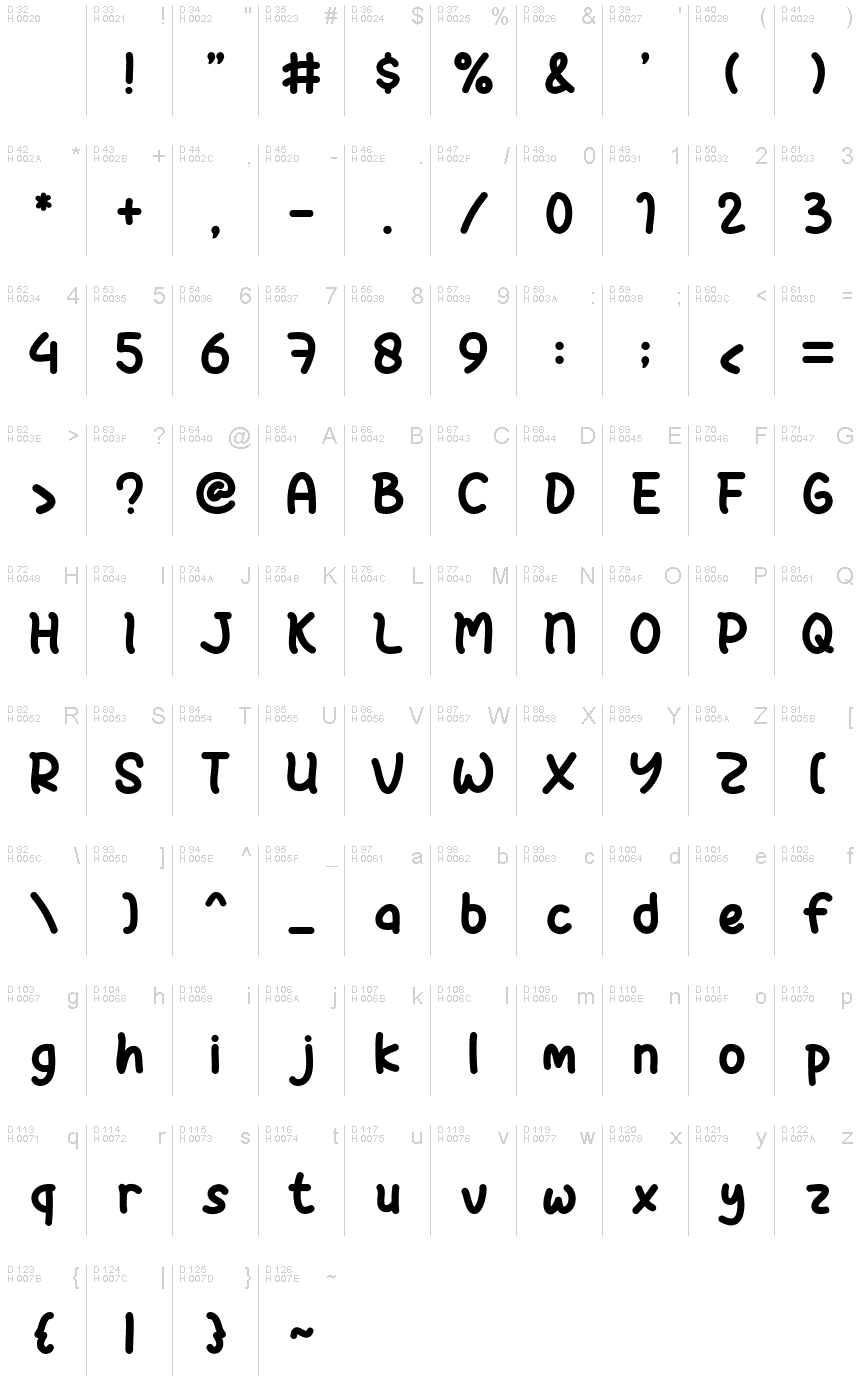
Morning Wind
Morning Wind is a captivating handwritten font designed by Morning Time Studio. This versatile font adds an elegant touch to any project, making it suitable for a wide range of creative endeavors. Its flowing strokes and charming imperfections evoke a sense of whimsy and sophistication, perfect for wedding invitations, branding projects, or artistic quotes. Whether you're designing a cozy café menu or crafting a personalized logo, Morning Wind's rich character and unique style will effortlessly elevate your work and leave a lasting impression. Embrace the gentle breeze of creativity with Morning Wind!